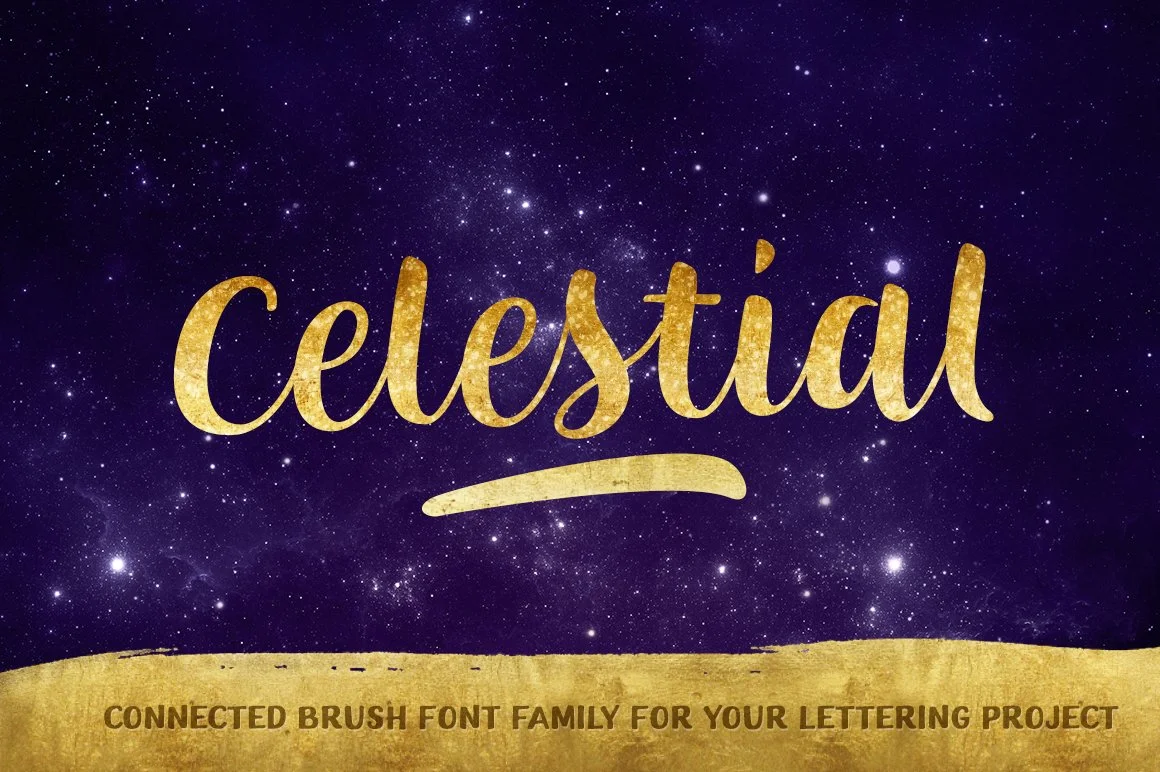
Celestial Brush Font is perfect for artistic branding, creative logos, handmade product packaging, art gallery promotions, spiritual wellness designs, inspirational quote graphics, artistic social media posts, bohemian fashion labels, meditation app interfaces, holistic product labels, creative workshop materials, and any design project requiring an expressive hand-painted aesthetic.
What makes Celestial Brush Font exciting is its organic brushstroke quality that captures the raw beauty of hand-painted artistry. The font's fluid strokes and natural imperfections create an authentic artistic expression, making it ideal for brands emphasizing creativity, authenticity, and spiritual connection. Its ethereal quality evokes feelings of transcendence and inspiration, helping designers create visually engaging content that resonates on an emotional and artistic level.
The Celestial Brush Font family typically includes uppercase and lowercase letters, numerals, punctuation marks, and brush texture variations that enhance its artistic authenticity.